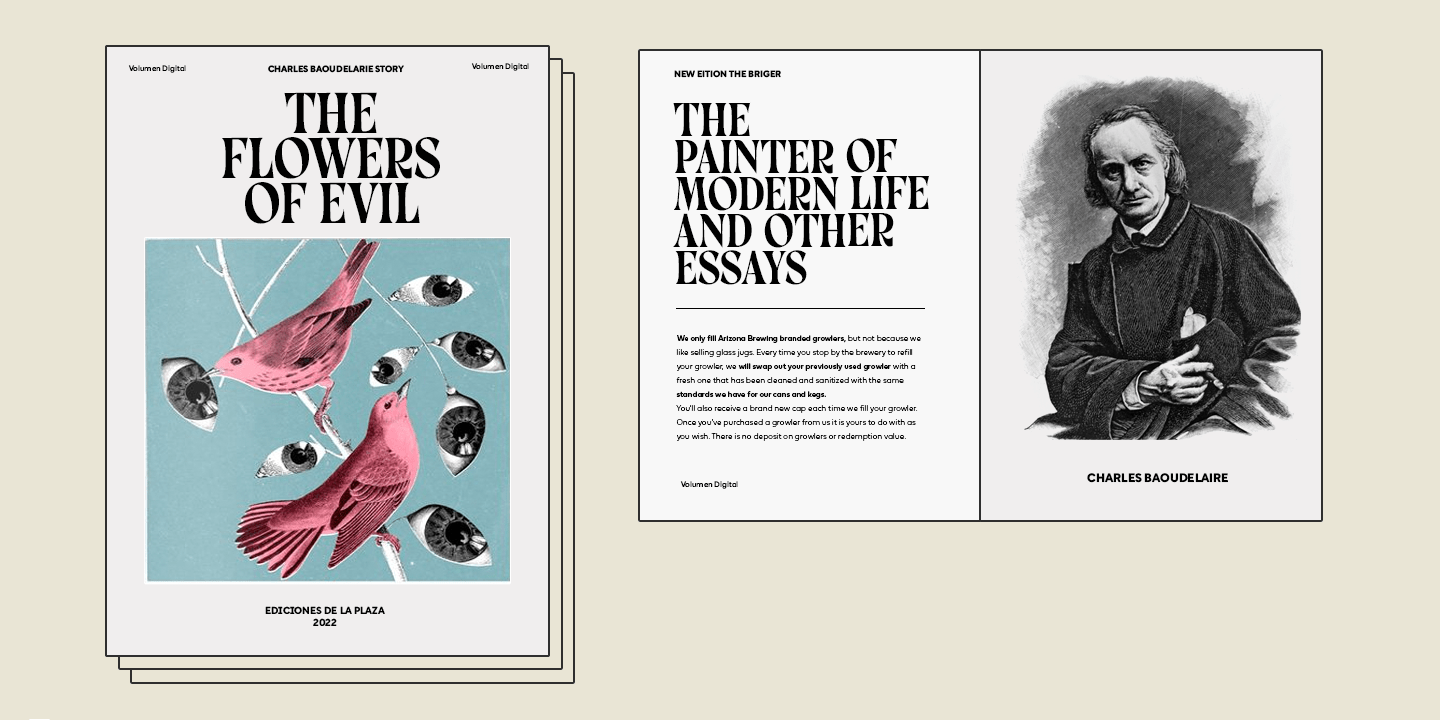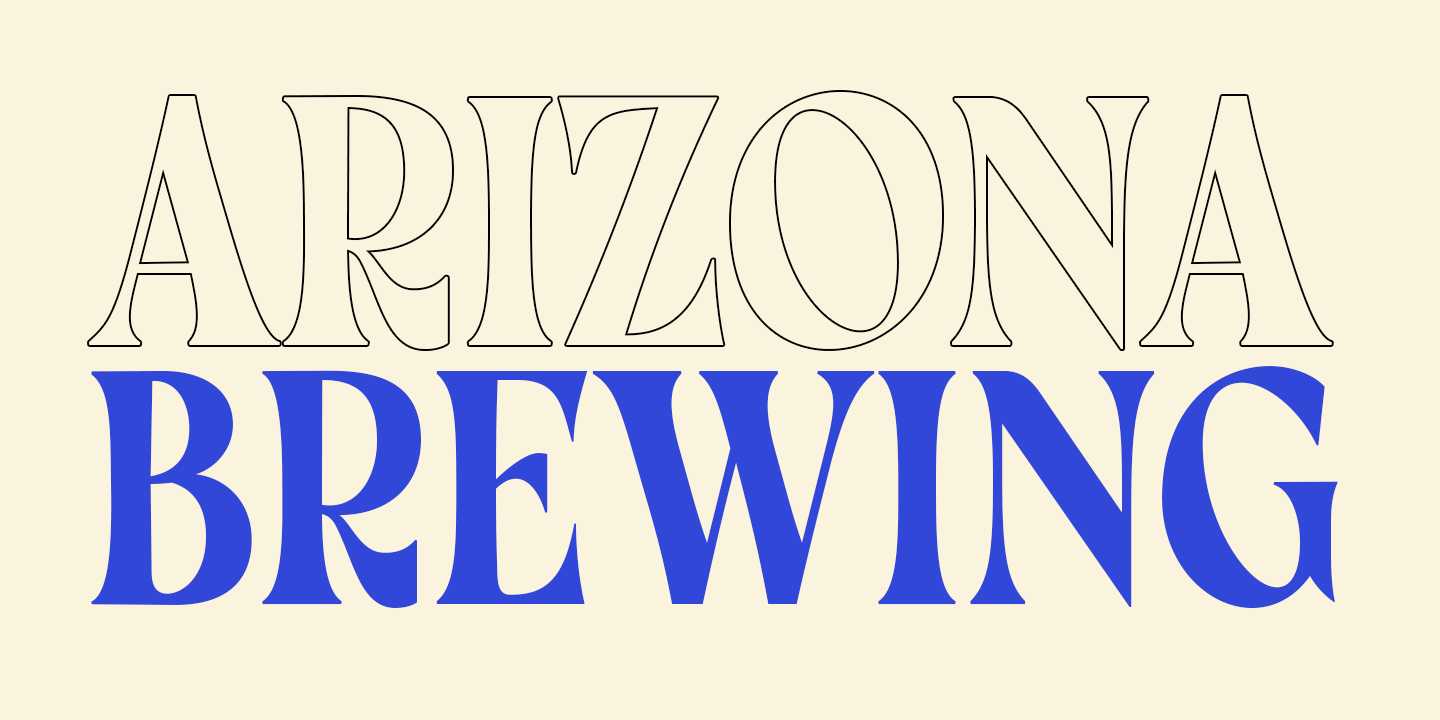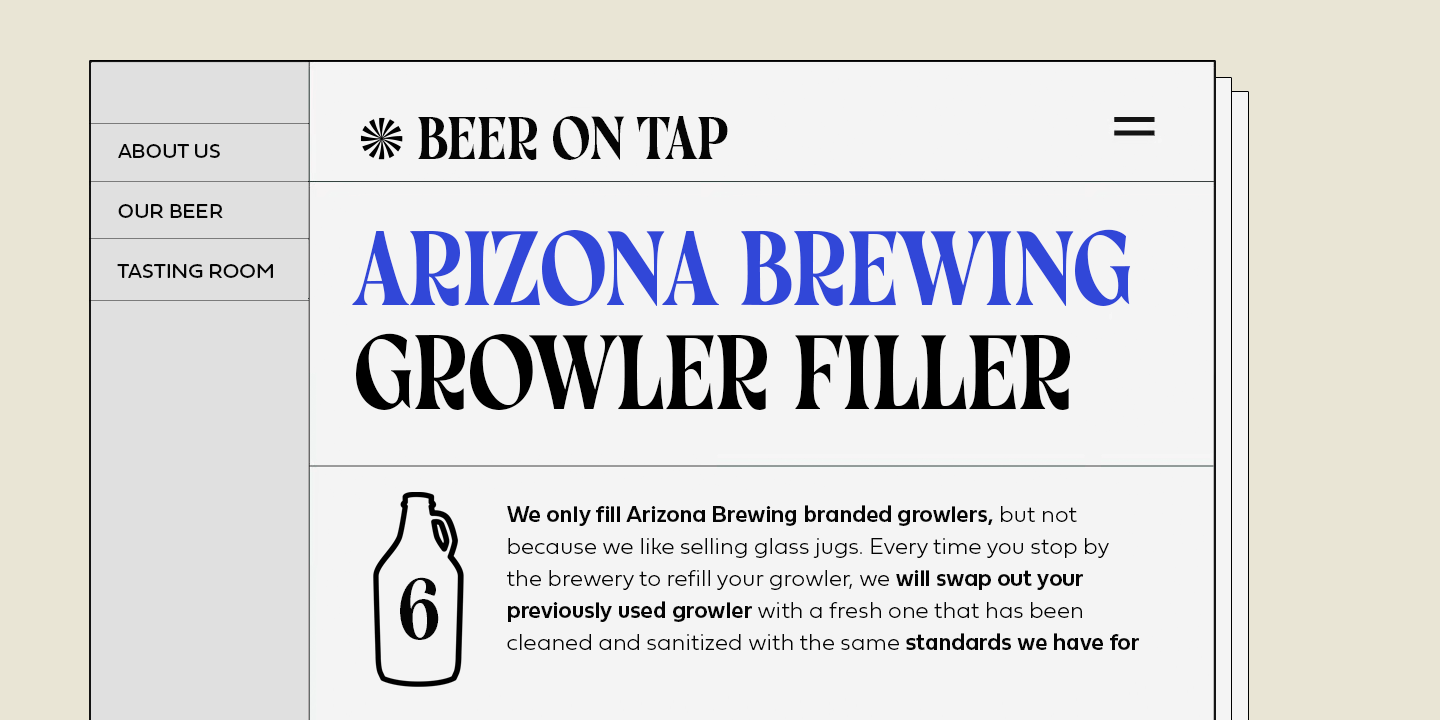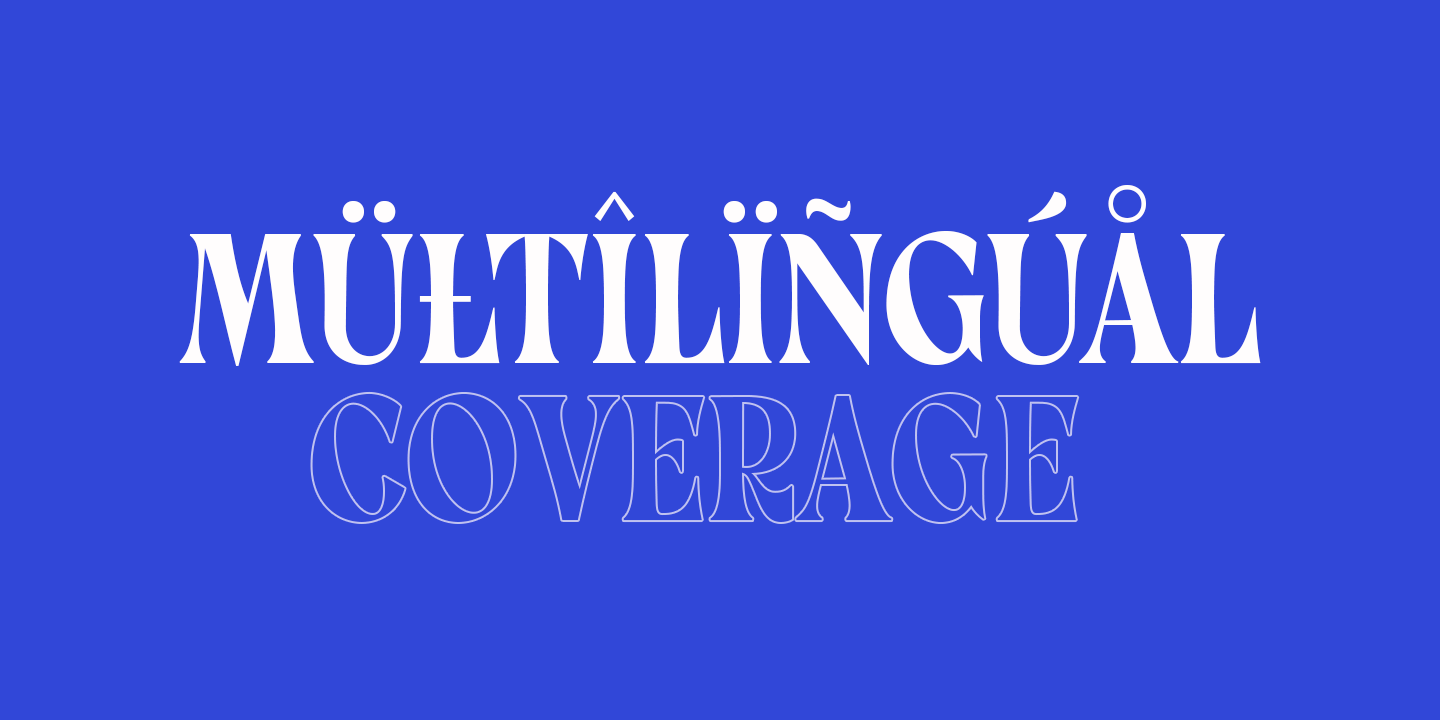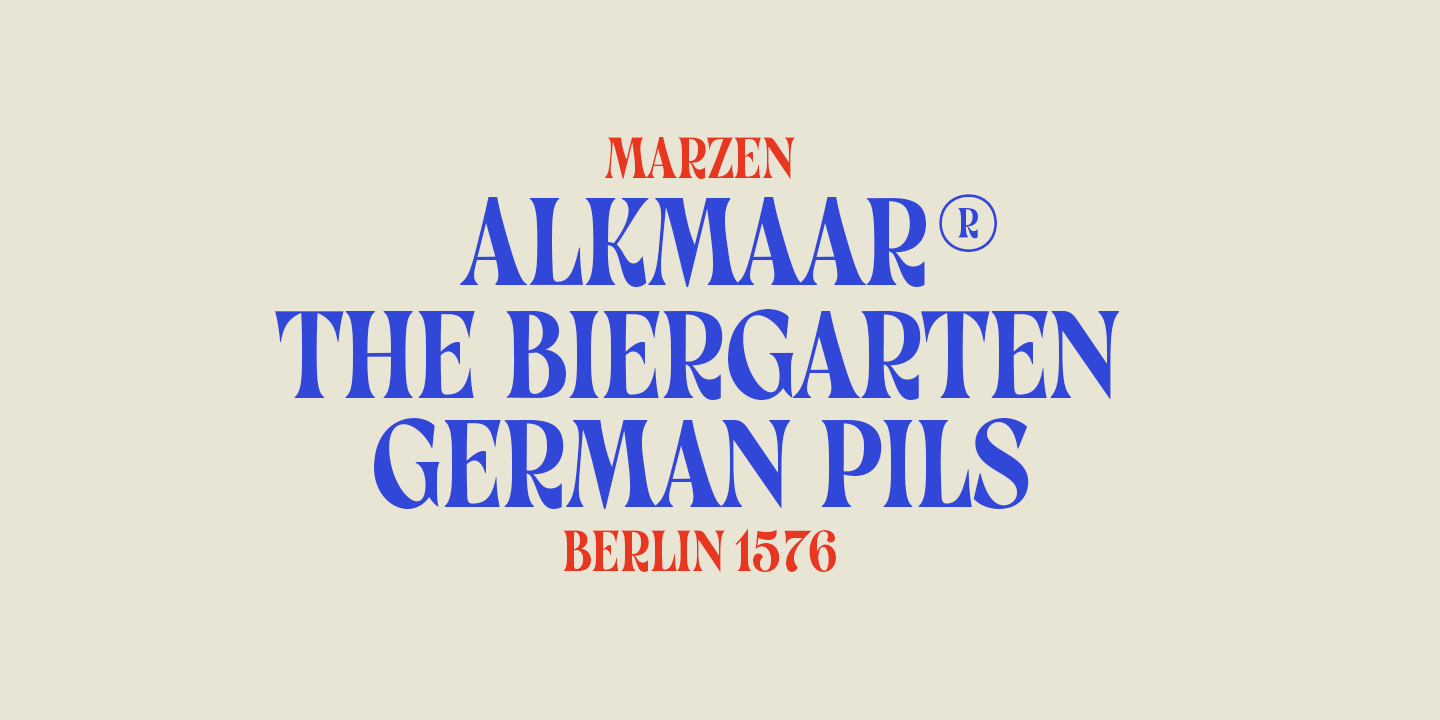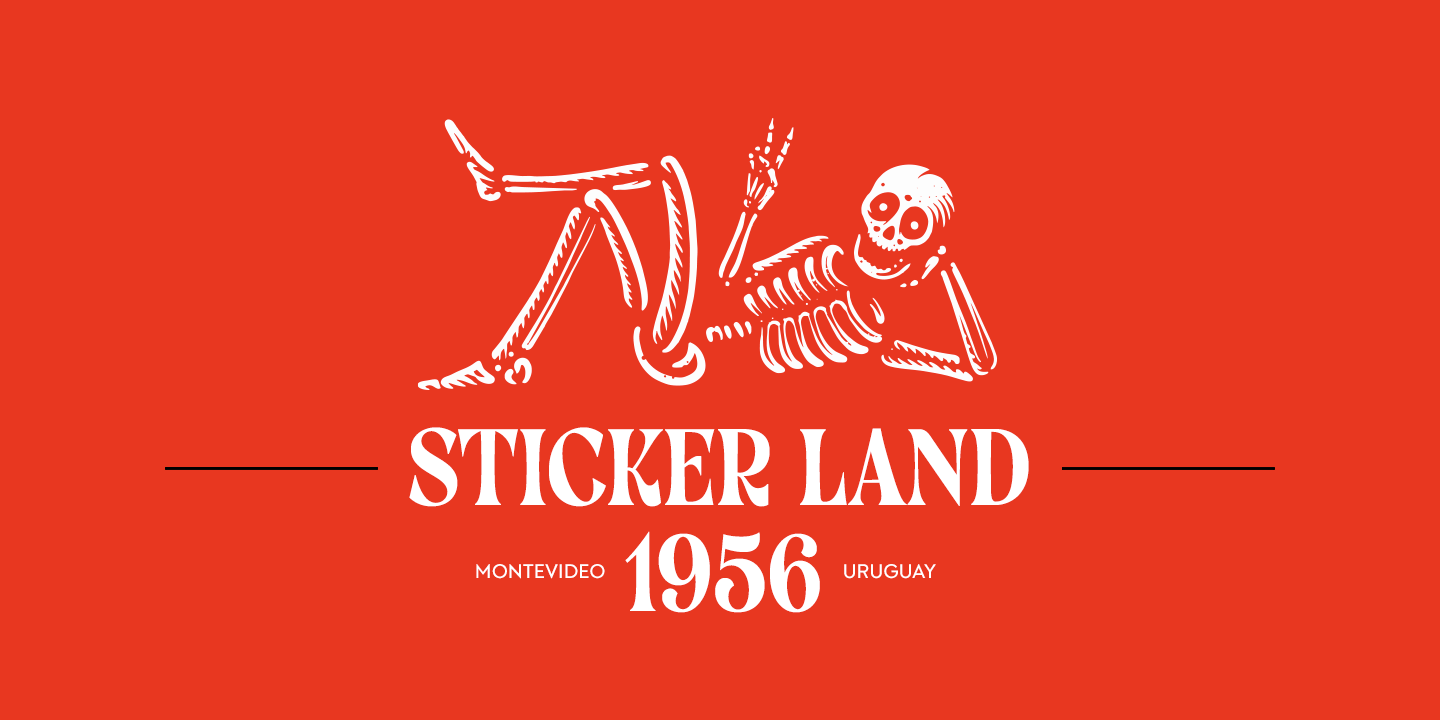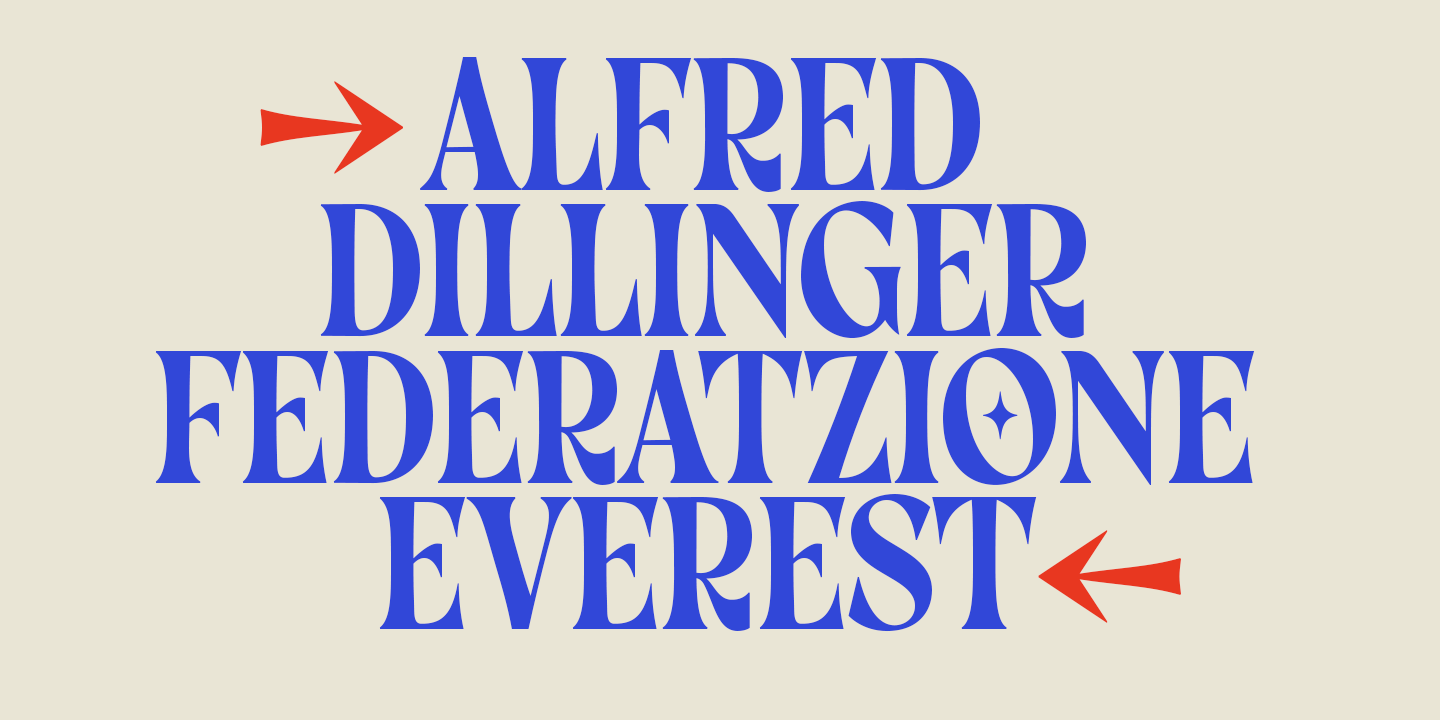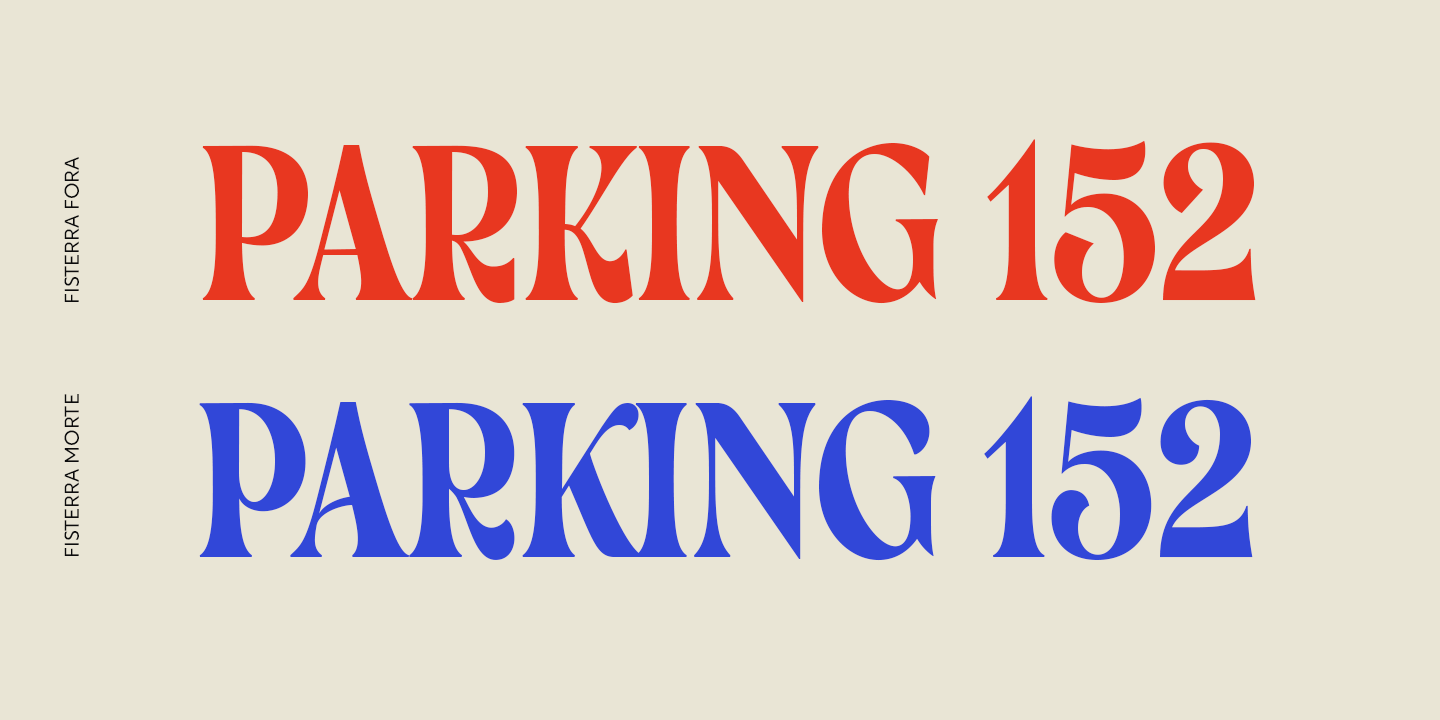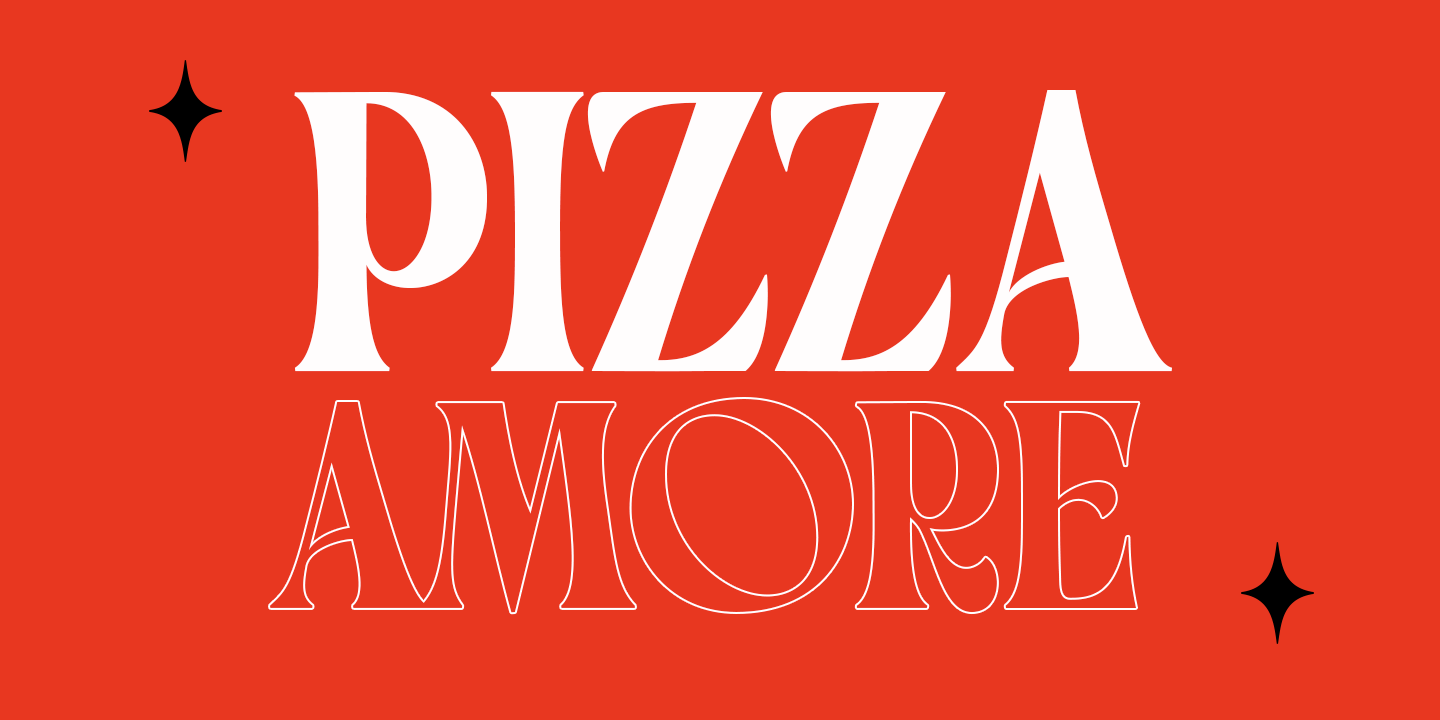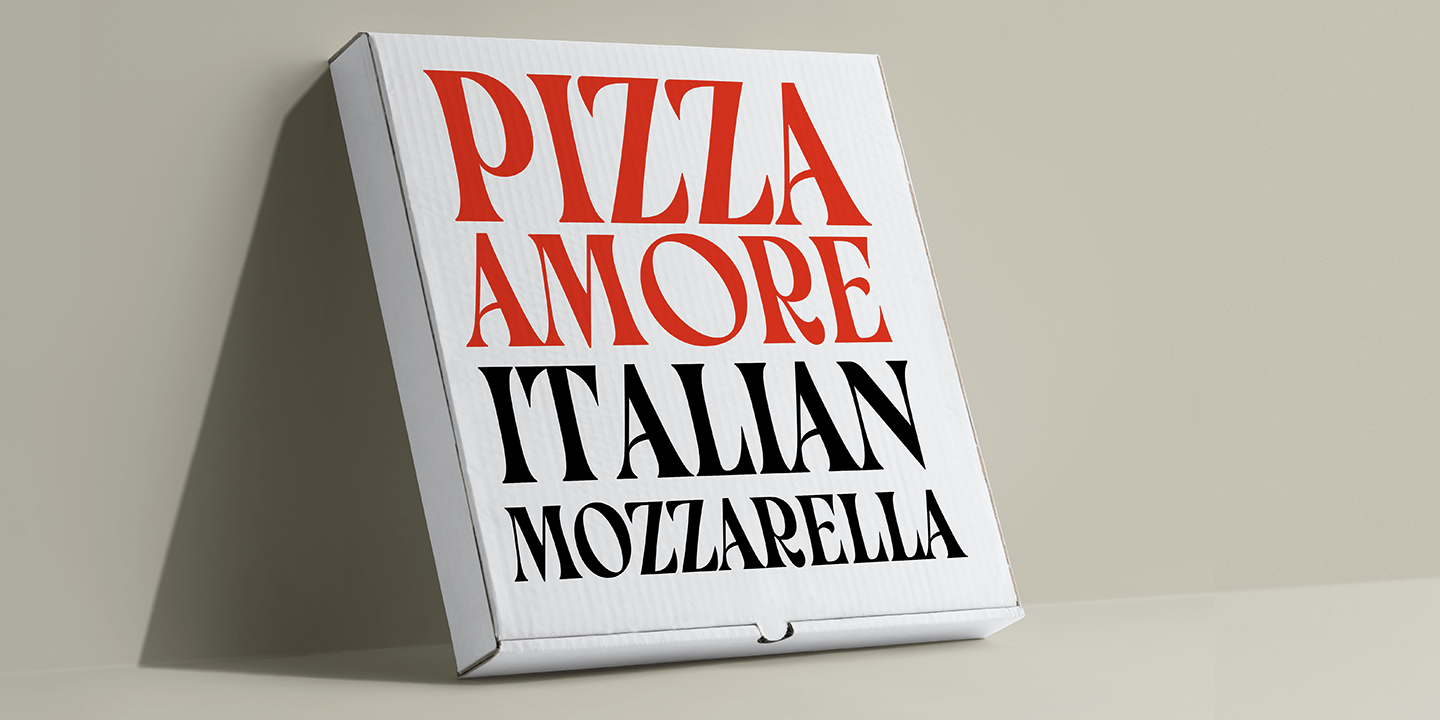
Fisterra
Fisterra Morte and Fisterra Fora: one typeface, two perspectives. The duality between the calm and the intensity with which we can face with each situation. Informal, serif and display in two flavors: Morte has the softness and the humanism of its voluptuous curves; Fora, the precision and accuracy of its sharp angles. They share a single skeleton of condensed uppercase letters, with expanded nuances in some alternate characters and ligatures.